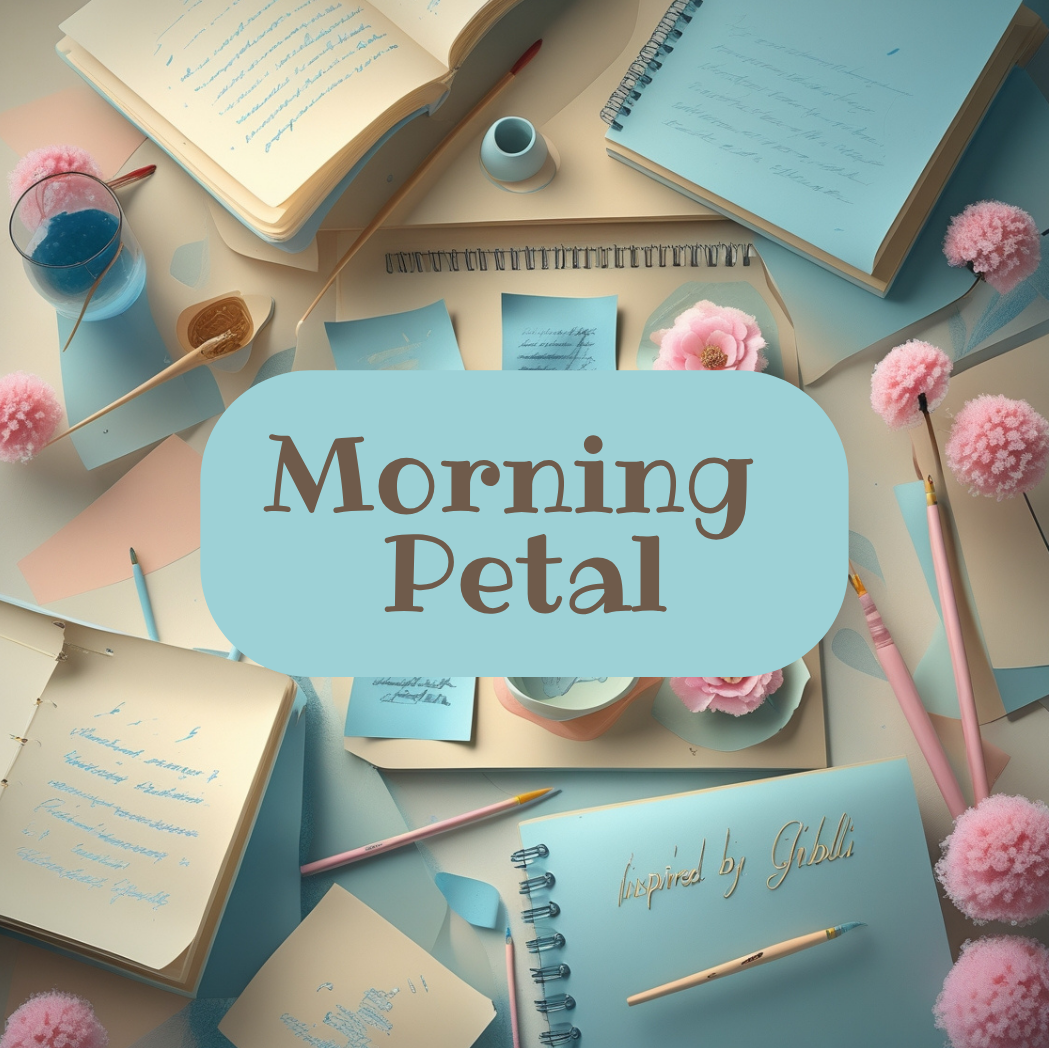
Morning Petal
A delicate and soft set that blends light contours with a gentle rhythm of lines. Morning Petal is crafted for projects seeking comfort, warmth, and calm. Its slightly uneven texture adds natural charm without overwhelming the design. It pairs well with greeting cards, posters, mini albums, and serene brand visuals. This pack includes rounded terminals and subtle decorative accents. It looks best in small to medium sizes. The letters breathe with space, creating a relaxed atmosphere. An inspiring choice for detail-oriented compositions.